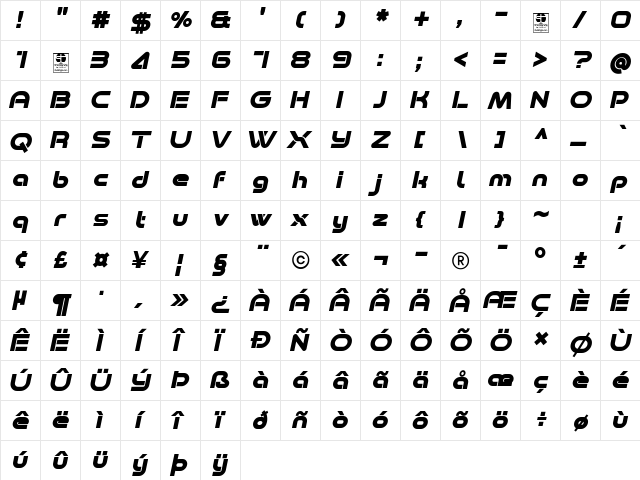
Minalis_Demo Bold Italic
| Foundry | StudioTypo |
| Designer | Mehmet Abac |
Design Context for Minalis_Demo Typeface
Minalis_Demo is a composed and adaptable typeface that performs quietly and consistently across a wide range of design contexts. The slanted form adds forward momentum and visual energy. The heavy weight commands attention and anchors typographic hierarchies.
Pro Tip: Try Minalis_Demo for annotation and caption copy alongside an upright companion — the contrast in angle creates a dynamic but ordered typographic system.